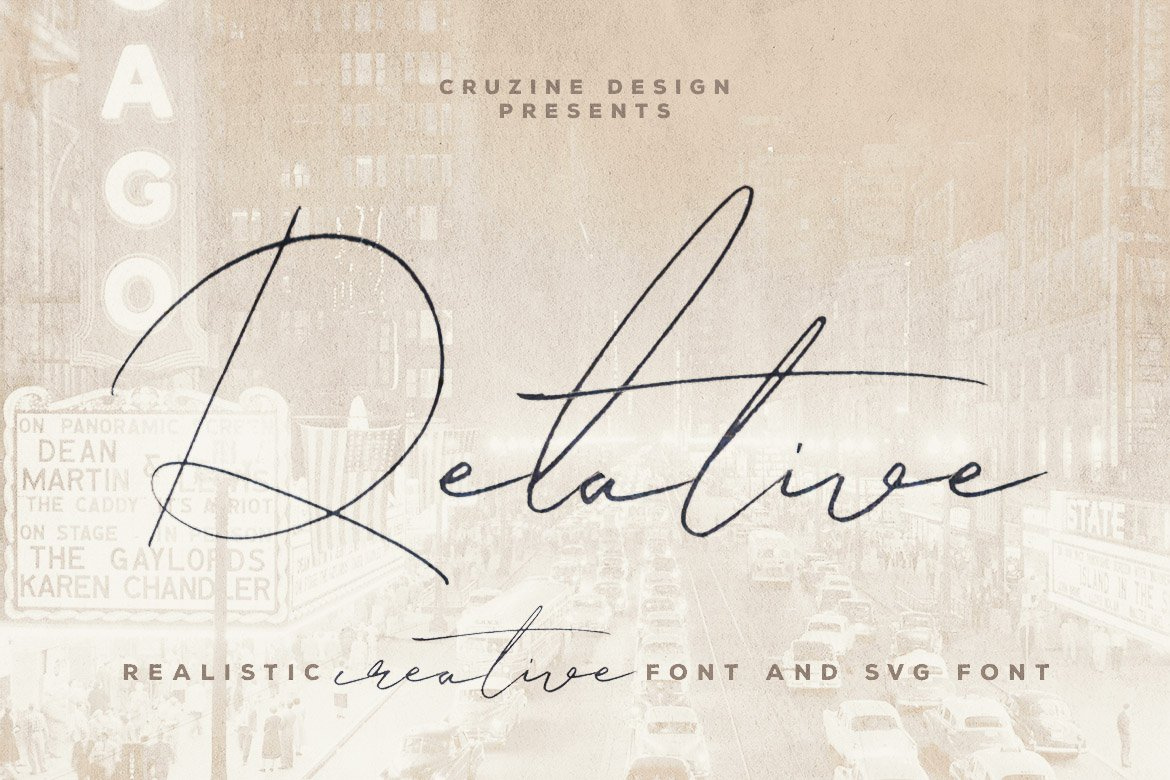
Relative Handwritten & SVG Font
Relative Handwritten & SVG Font is perfect for family photography studios, personal storytelling brands, intimate wedding invitations, heartfelt greeting cards, family reunion materials, genealogy services, personal memoir projects, close-knit community organizations, family-focused businesses, and authentic relationship-centered lifestyle brands.
Relative Handwritten & SVG Font creates excitement because it embodies the warm intimacy and personal connection of family relationships with its handcrafted letterforms and kinship-inspired character design. The font's personal curves and family aesthetic instantly convey genuine warmth and relational authenticity, making any brand appear lovingly personal and authentically family-centered. Its carefully crafted handwritten details and familial character create an immediate sense of personal connection that captivates audiences seeking family experiences, relationship quality, and products that celebrate the transformative beauty of family bonds and personal relationships.
This heartwarming typeface brings the authentic spirit of family connection into contemporary personal design with remarkable warmth and relational appeal. Relative Handwritten & SVG Font Free Download provides family brands and personal service organizations with access to premium handwritten typography that embodies the essence of family love and personal relationships. The font's intimate design and family authenticity make it ideal for businesses seeking to establish meaningful connections with family-oriented audiences who appreciate personal relationships, family values, and the transformative power of genuine family connection that creates lasting bonds. Whether you're creating branding for family services, designing materials for personal storytelling, developing communications for relationship platforms, or producing content for family-focused organizations, this font delivers the warm family atmosphere that resonates with audiences seeking genuine personal experiences, family quality, and the intimate connection that comes from embracing authentic family relationships. Its versatile design ensures outstanding performance across both personal printed materials and heartfelt digital family platforms while maintaining the character of authentic handwritten typography. The font excels in applications requiring family credibility and personal appeal. Family service professionals appreciate its ability to convey personal authenticity while remaining highly functional for various family communications and relationship promotional materials. The comprehensive character set includes family symbols and extensive international language support, making it perfect for global family brands and international relationship organizations seeking to communicate authentic family values, personal connection, and relationship excellence to diverse worldwide audiences who embrace family living, appreciate personal relationships, and value the transformative power of genuine family connection that creates lasting memories through personal love, family support, and the beautiful bonds that unite families across generations through shared experiences, mutual care, and the timeless power of family relationships that define our most meaningful connections.